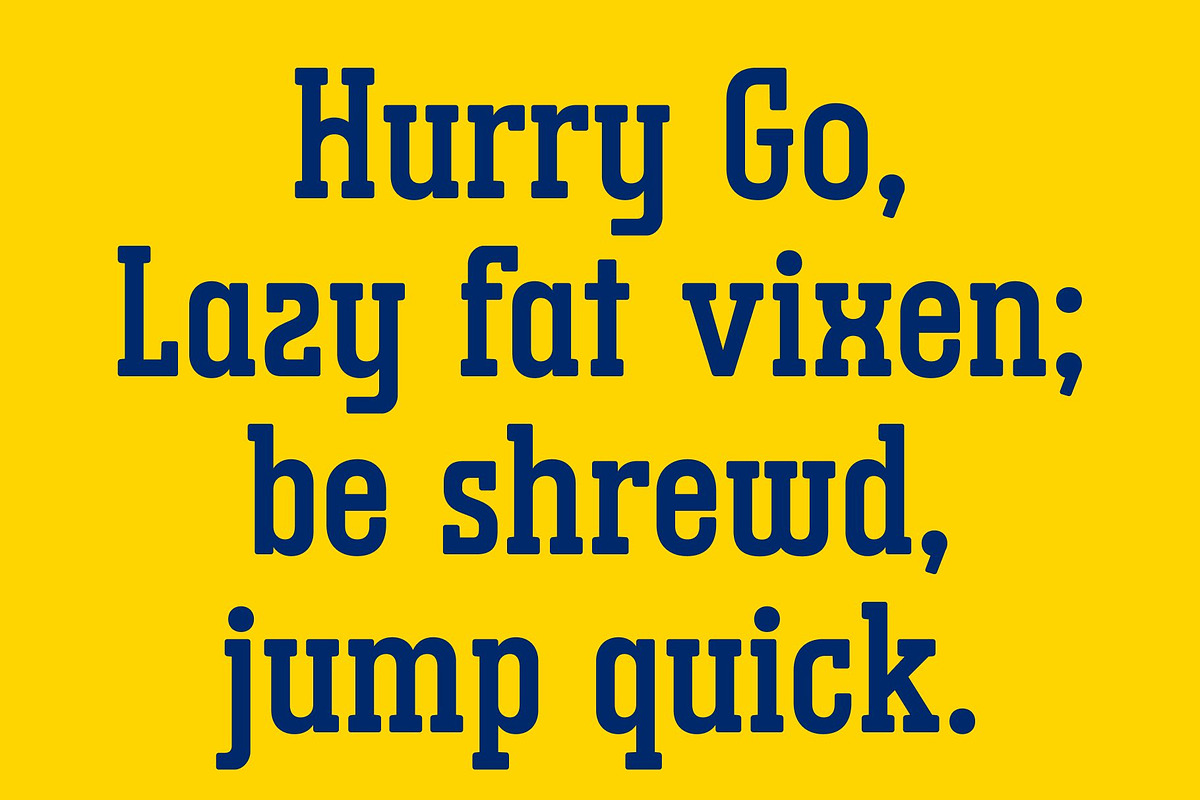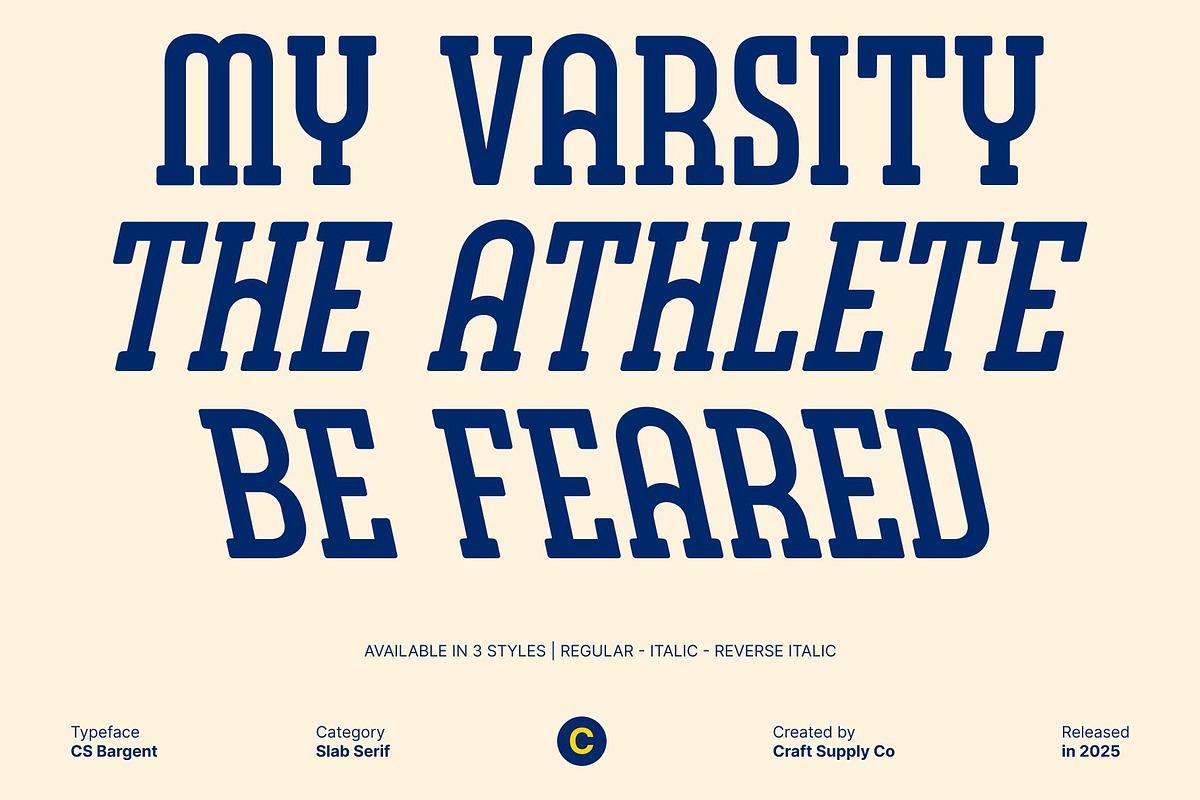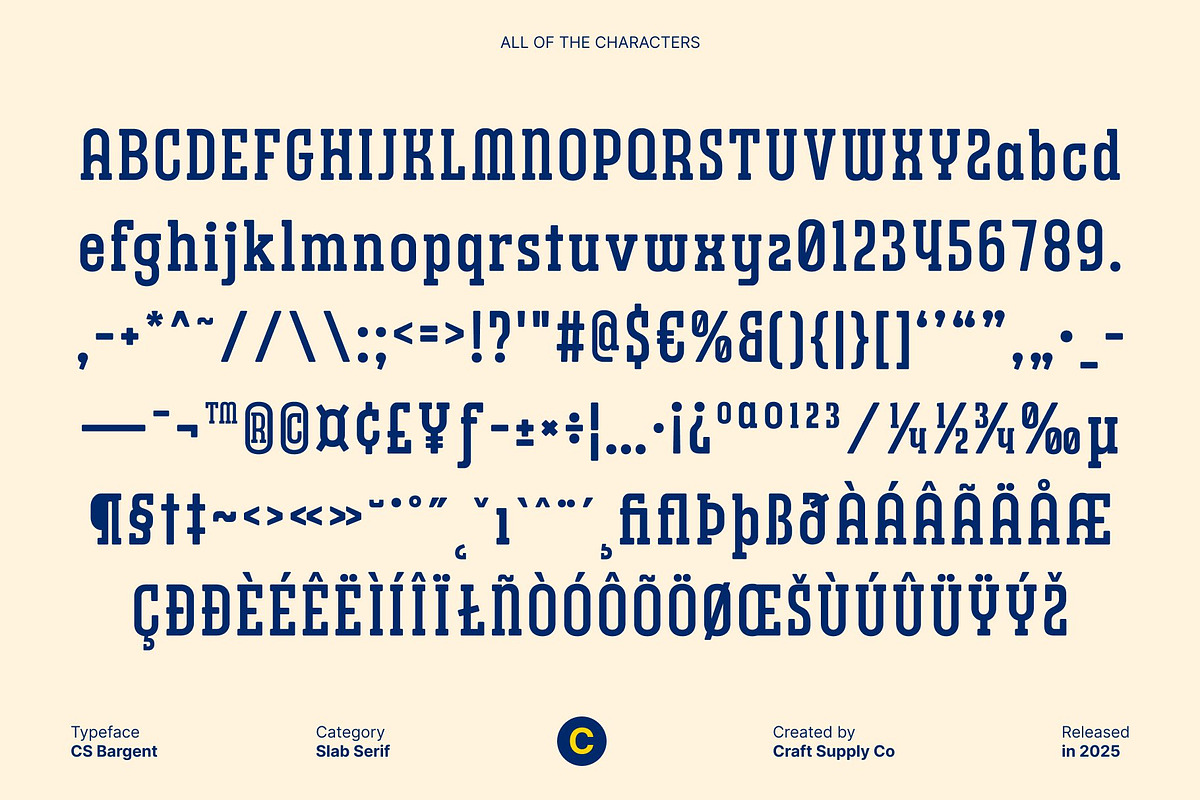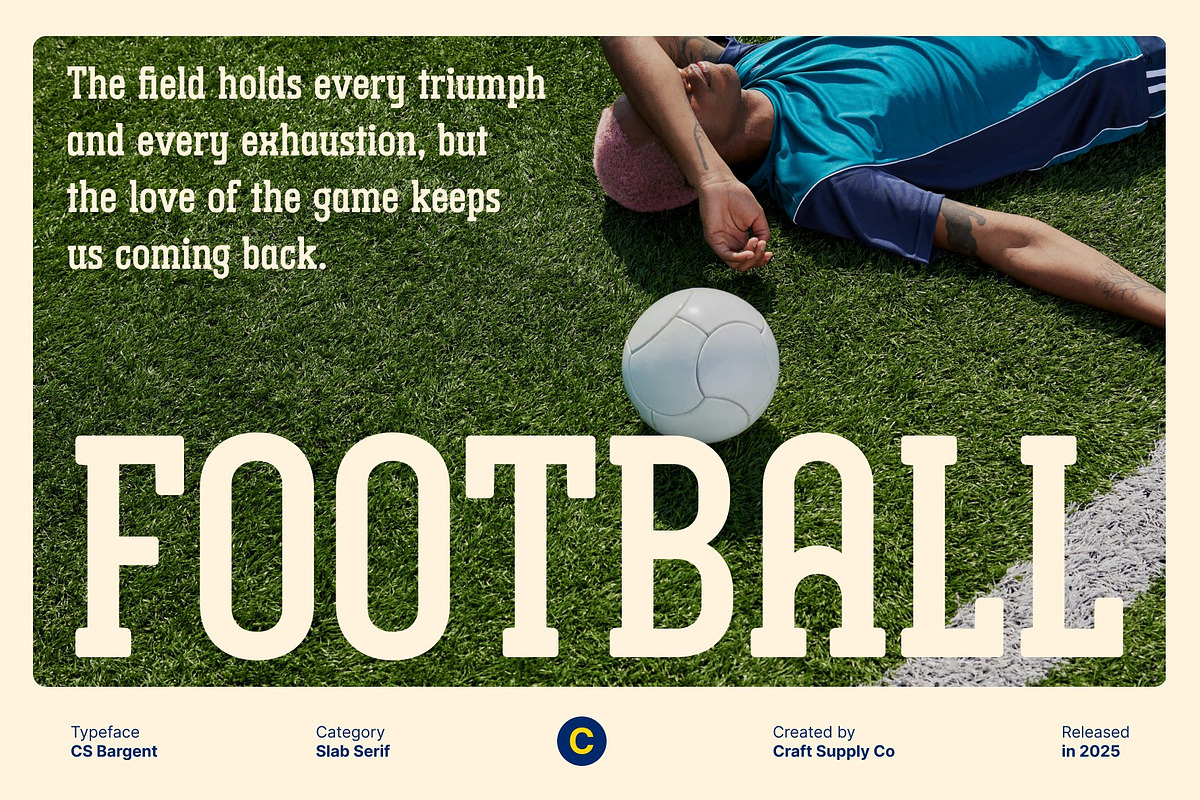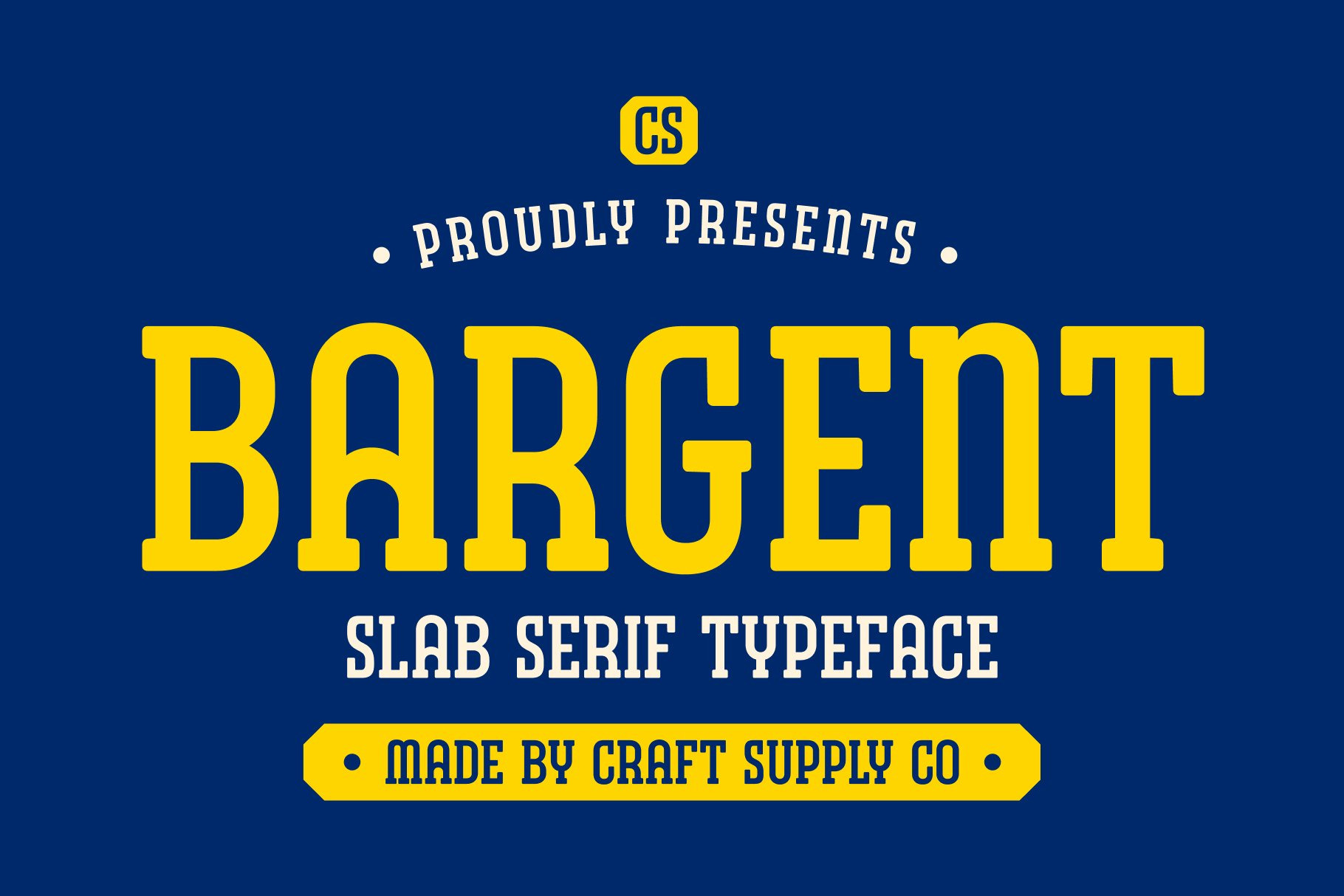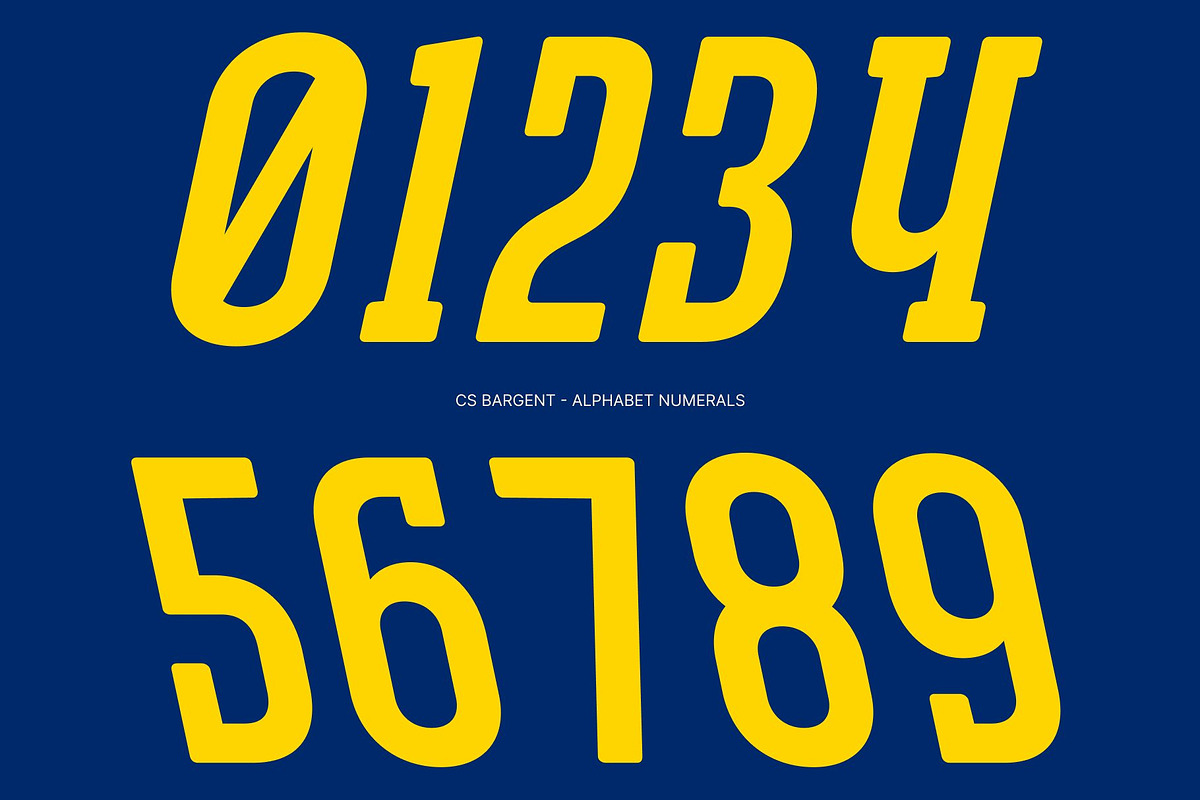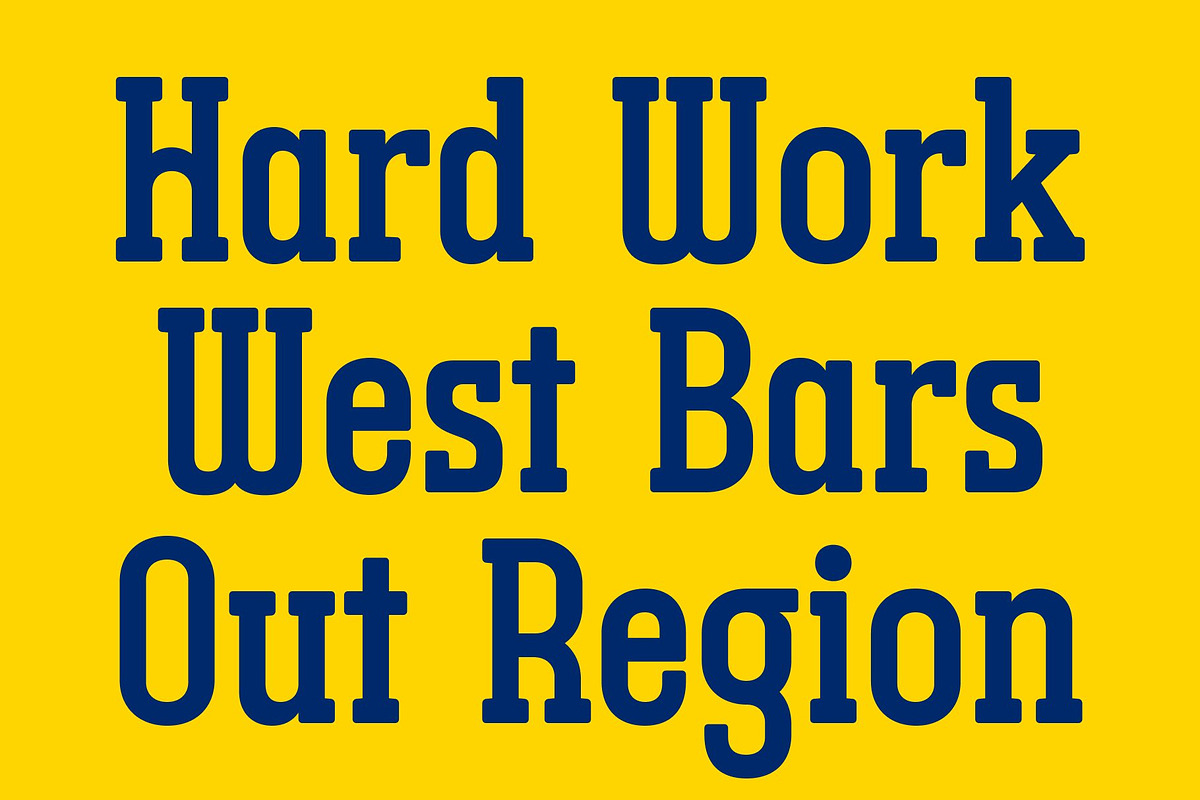
CS Bargent – Slab Serif Font
CS Bargent – Modern Slab Serif Font: Bold, Sporty, and Assertive
Soft Yet Assertive Slab Serif This is a modern slab serif font that balances soft curves with strong, assertive forms. Inspired by sporty and campus-style typography, it conveys both energy and stability, making it ideal for projects that require a bold and confident presence. Its carefully designed letterforms provide clarity and impact, ensuring maximum readability even from a distance.
Ideal for Headlines and Posters With its powerful structure, this font is perfect for headlines, posters, advertisements, and billboards. The font’s clear, sturdy forms make it stand out in large formats, drawing attention while maintaining a modern and stylish aesthetic. Its versatility allows it to shine in both digital and print applications.
Sporty-inspired and Visual Appeal The sporty influences of this font add a dynamic and energetic vibe to any design. Its robust slab serif structure communicates strength, while its balanced proportions ensure readability and elegance. This makes it especially suitable for lifestyle, sports branding, or campus-related projects that aim to make a visual impact.
Versatile for Modern Branding This font adapts seamlessly to a variety of creative applications, from logos and packaging to editorial layouts and promotional materials. Its combination of modern design, assertive weight, and approachable style allows designers to create compelling, visually striking compositions that resonate with audiences and leave a lasting impression.
CS Bargent Regular
CS Bargent Italic
CS Bargent Reverse Italic